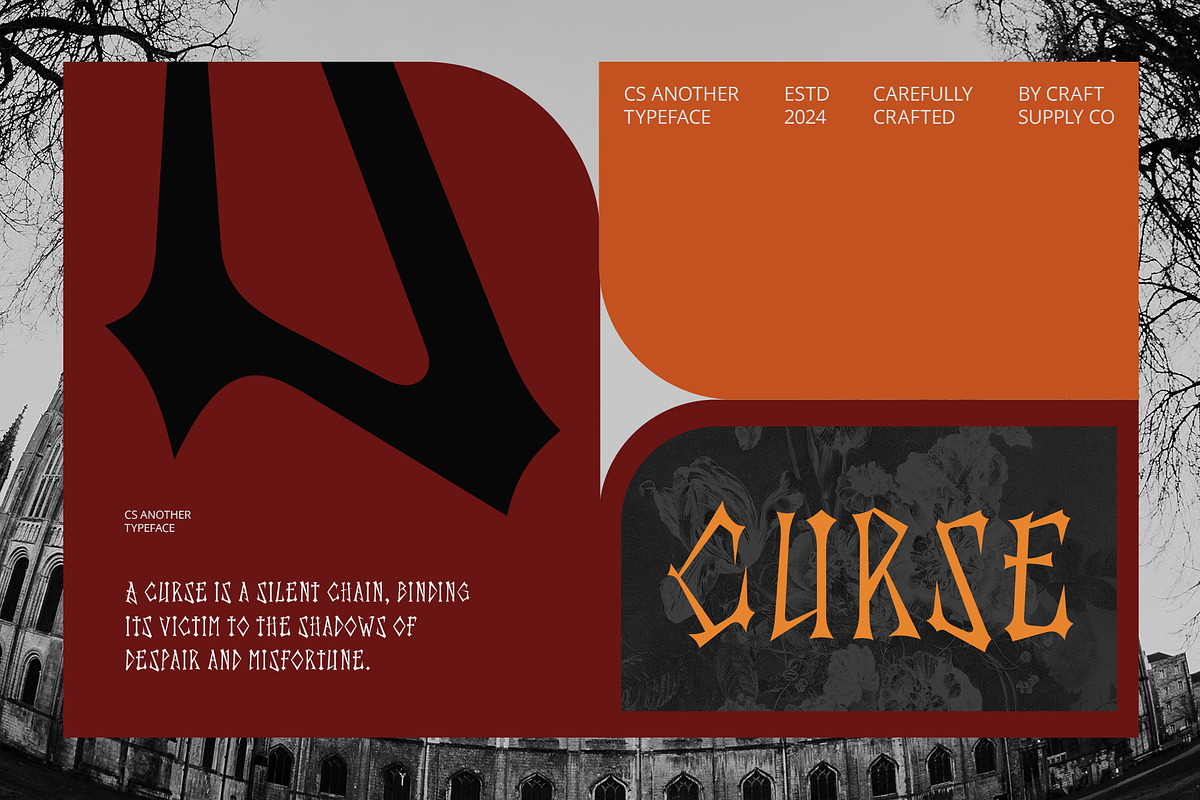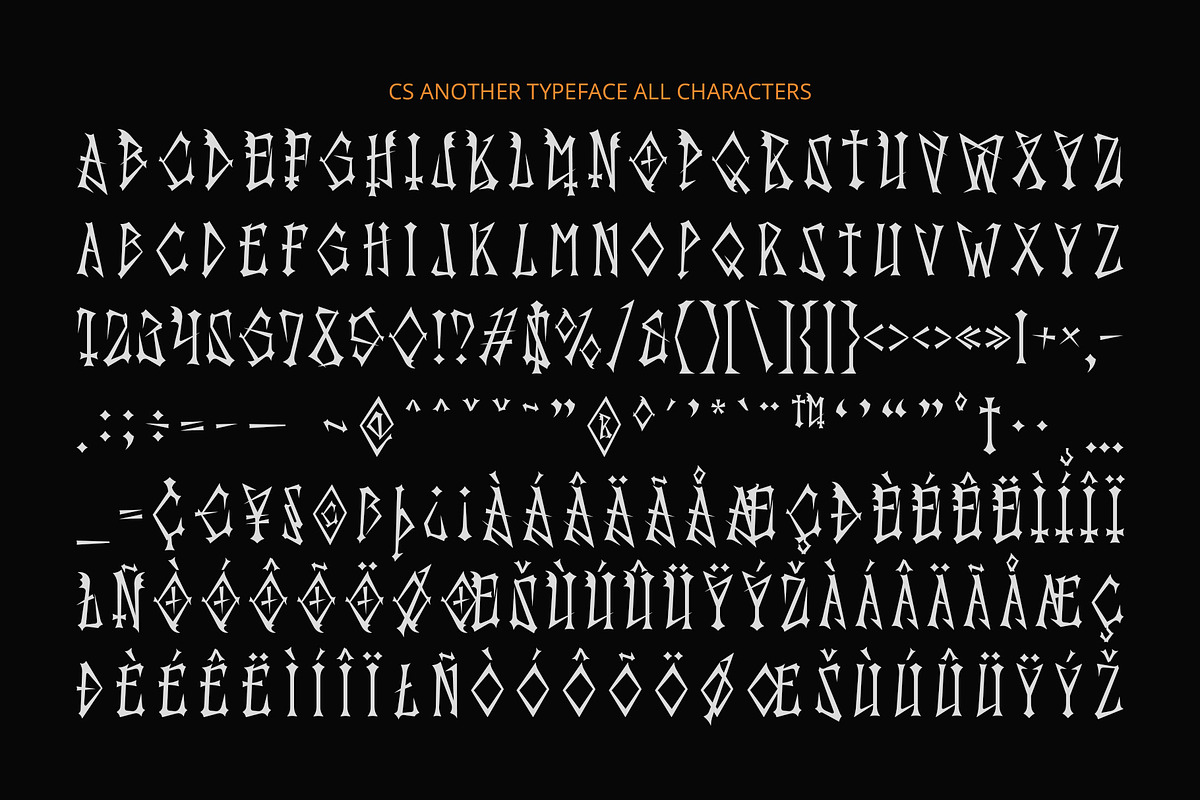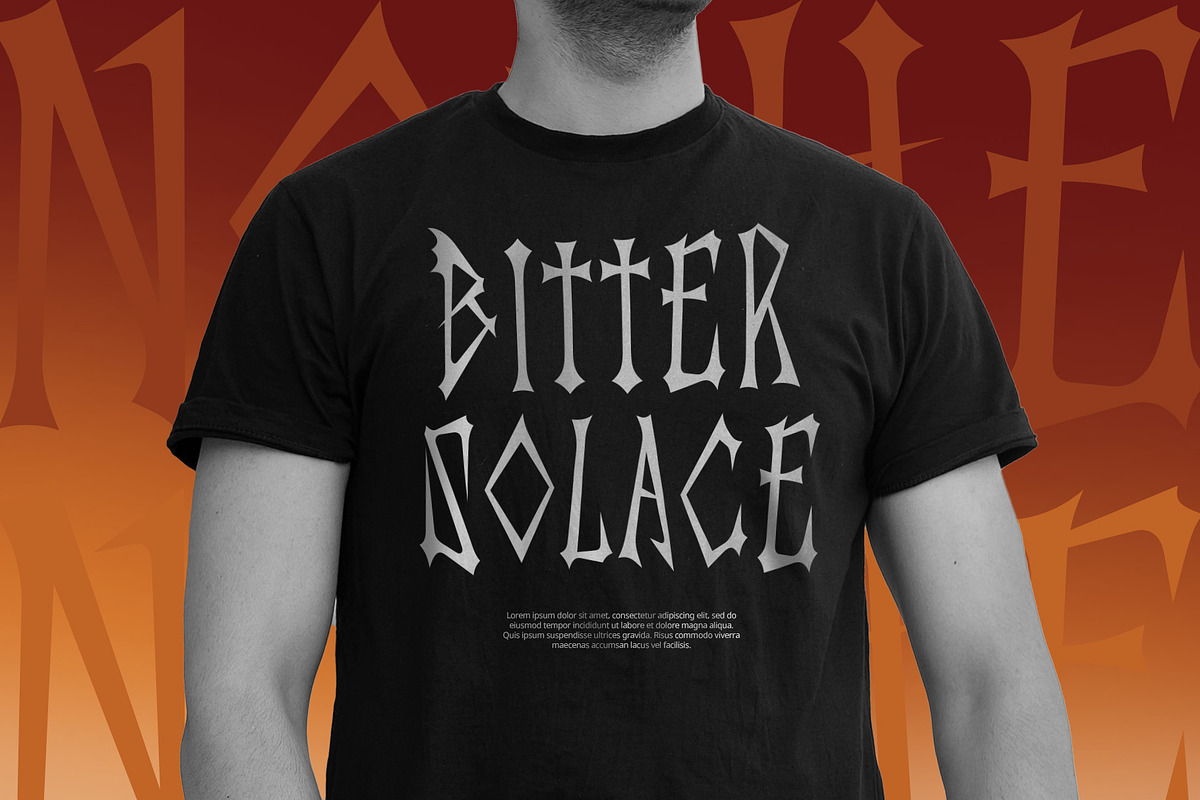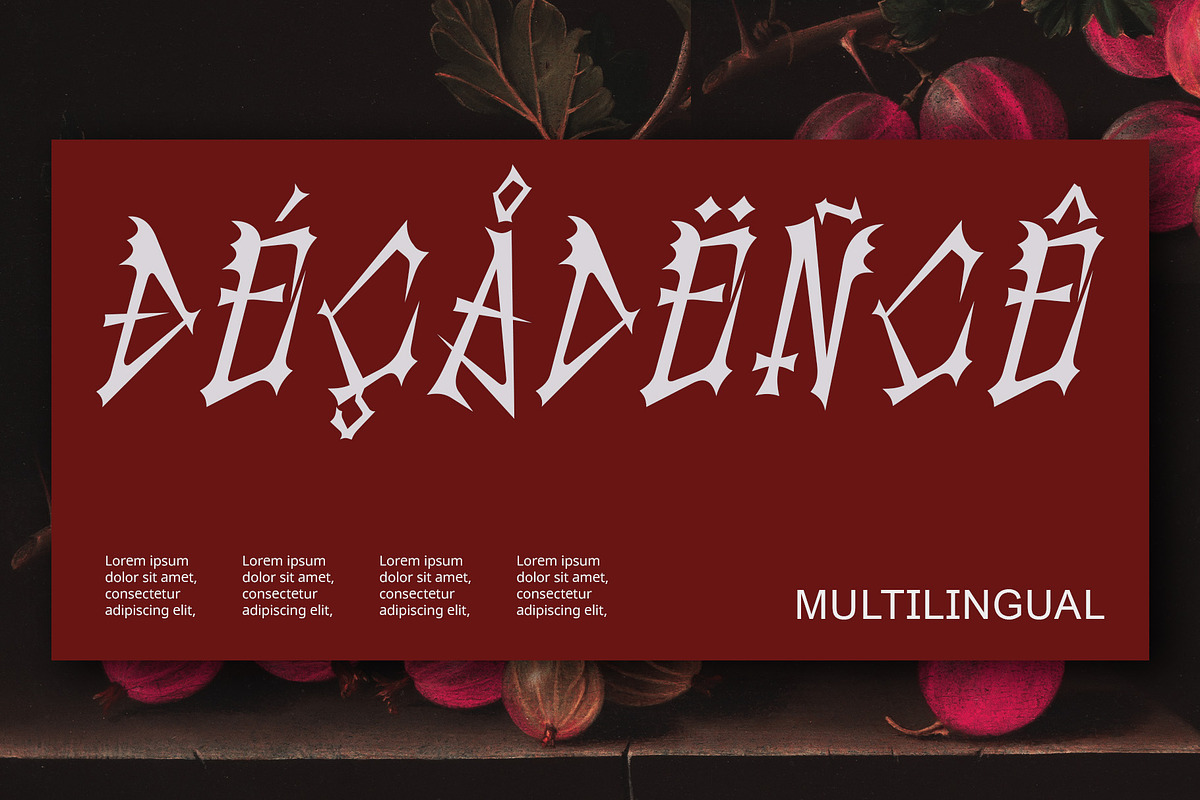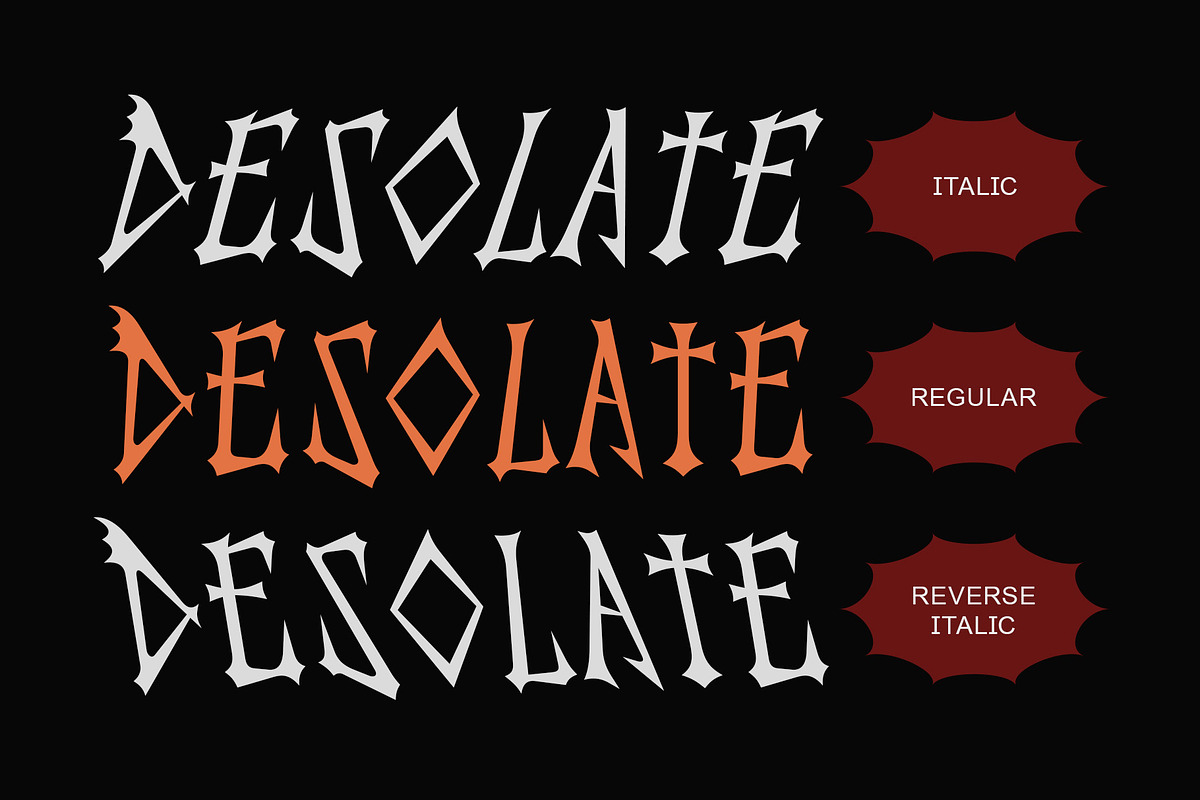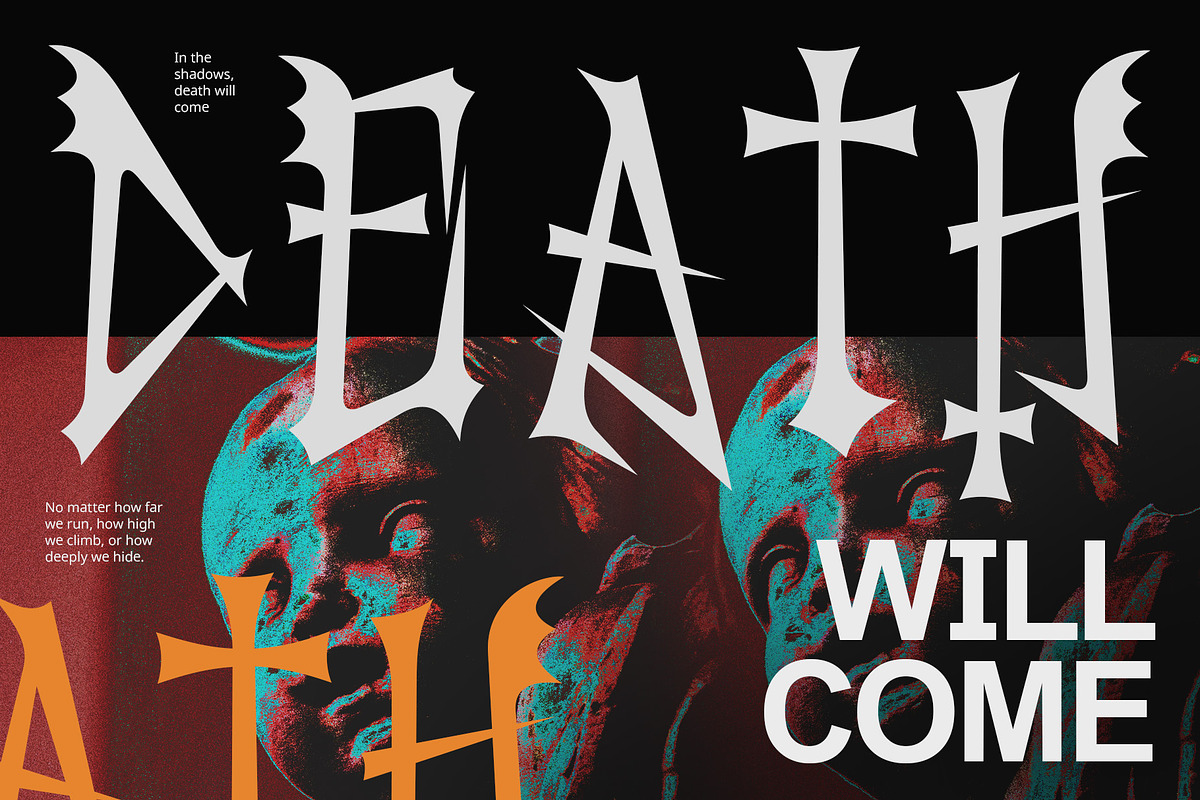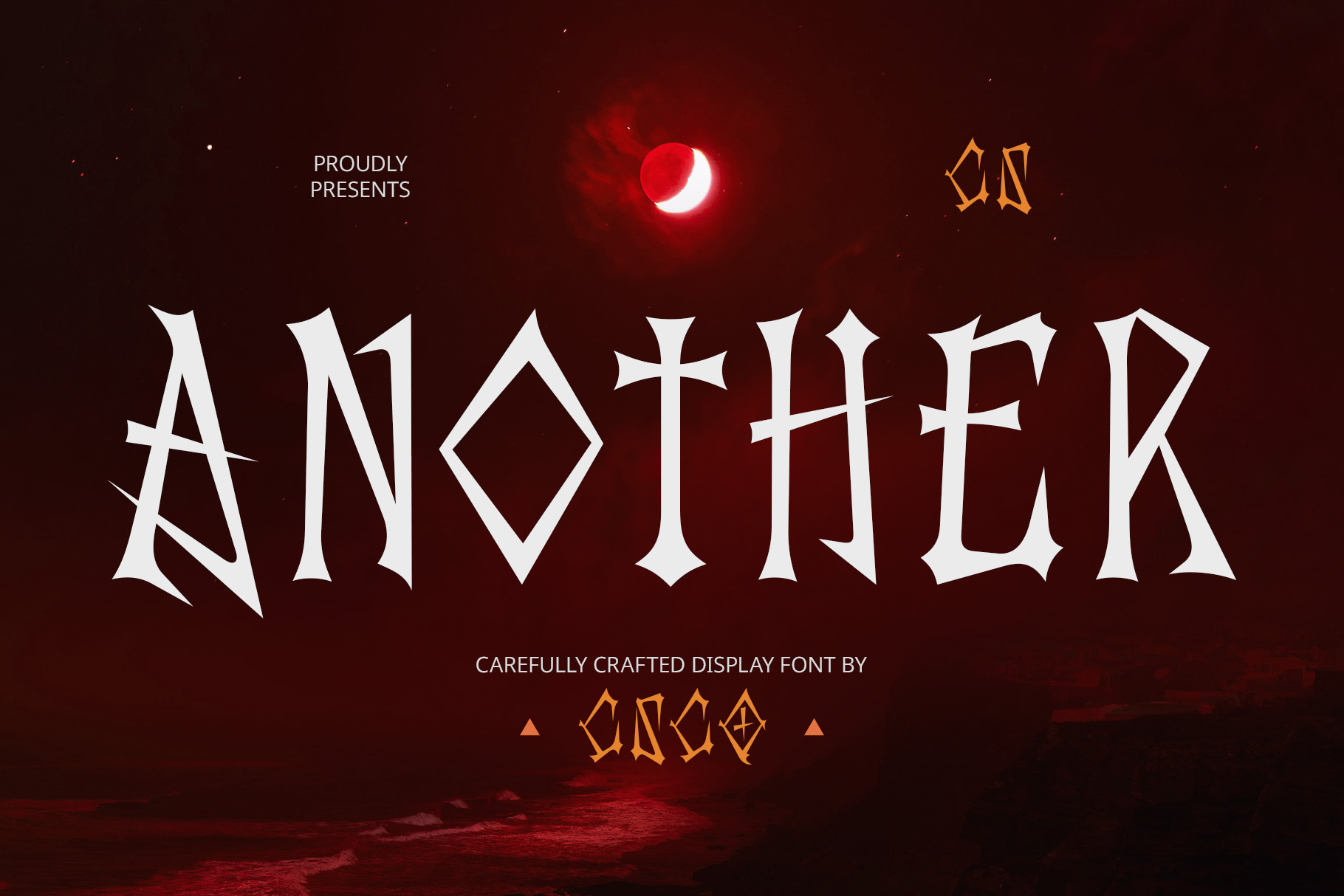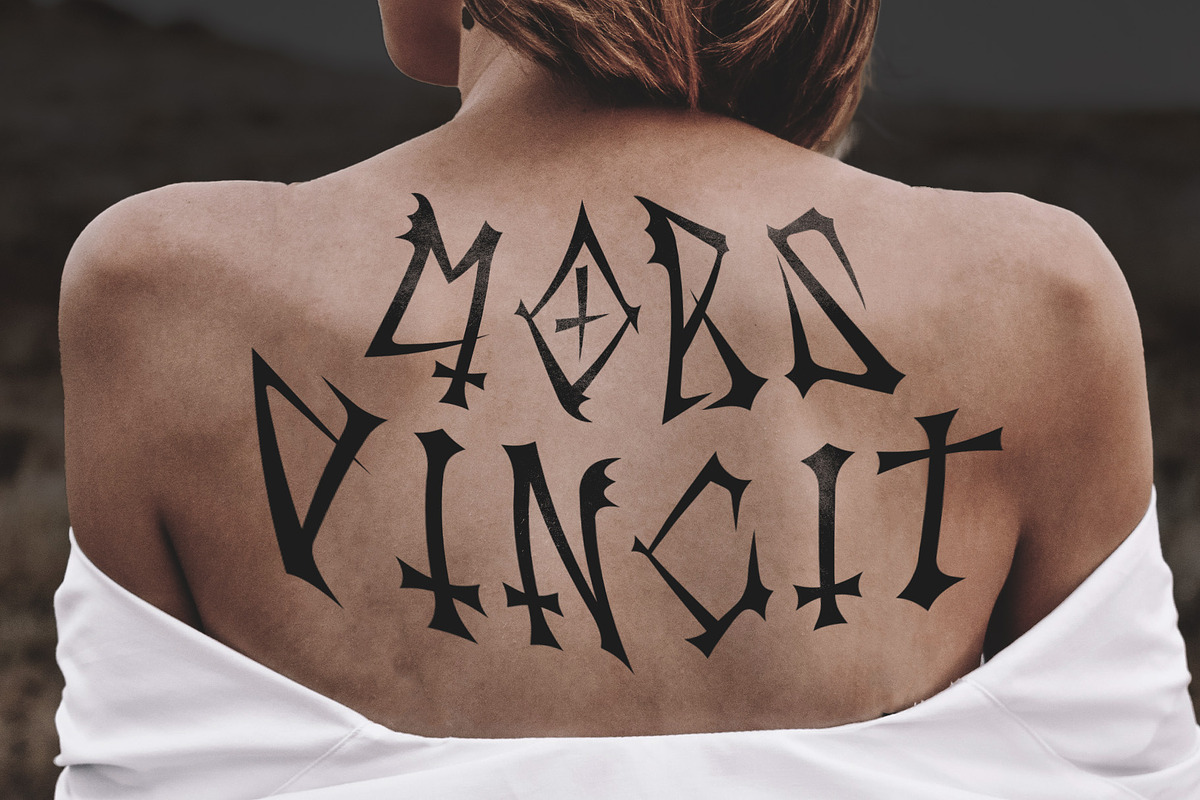
CS Another – Gothic Font
CS Another – Gothic Font: A Bold Gothic Display Typeface
Intriguing, Mysterious, and Dark CS Another is a gothic display font that masterfully combines sharp, ornate letterforms with deep contrasts, creating a sense of mystery and drama. Its distinct, pointed edges and intricate details evoke an aura of intrigue, making it perfect for designs that need to communicate boldness, darkness, and allure.
An Enigmatic Gothic Style Designed to evoke an air of mystery and intrigue, CS Another captures the essence of gothic typography with its elaborate, decorative elements and strong contrasts. The sharp edges and ornate flourishes give this font a menacing yet elegant feel, making it ideal for designs that demand a bold, enigmatic presence. Whether used for horror-themed designs, fantasy projects, or gothic-inspired branding, this font makes a statement with its striking and dramatic appearance.
Perfect for Horror, Fantasy, and Dark Branding CS Another is perfect for horror-themed projects, fantasy book covers, or branding that seeks to convey a sense of the unknown and the supernatural. Its unique gothic style brings a dark, compelling energy to any design, capturing the essence of eerie stories, mysterious characters, or mystical realms. Whether you’re designing an eerie poster, a spine-chilling book cover, or a bold logo, this font will elevate the mood with its gothic charm.